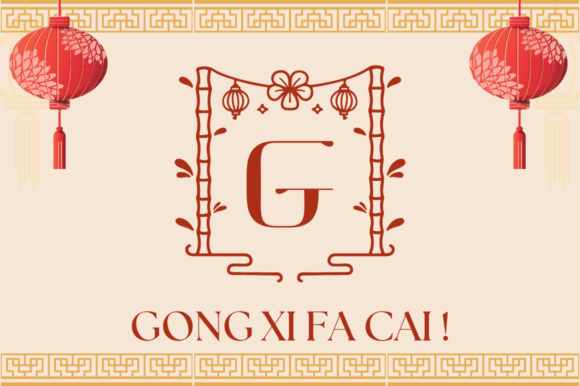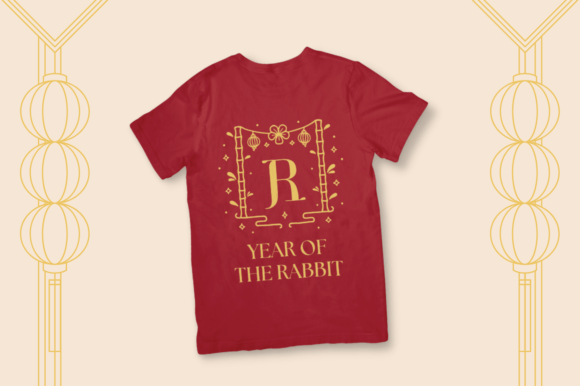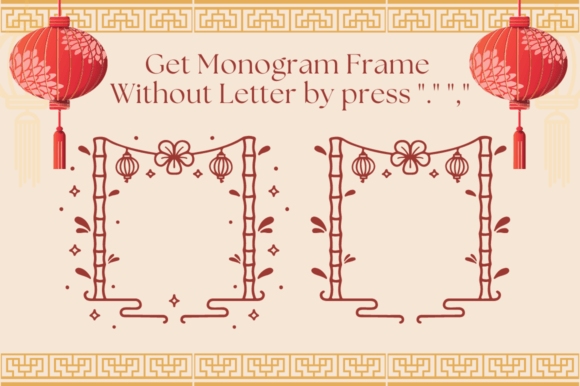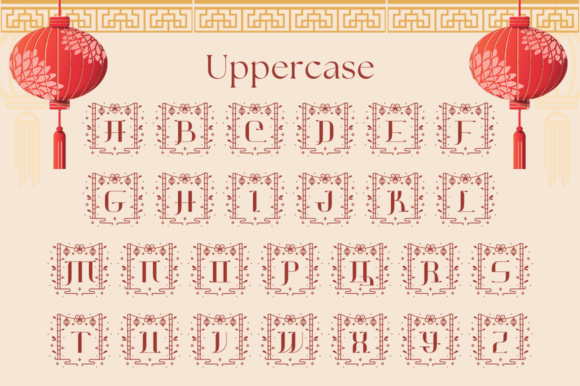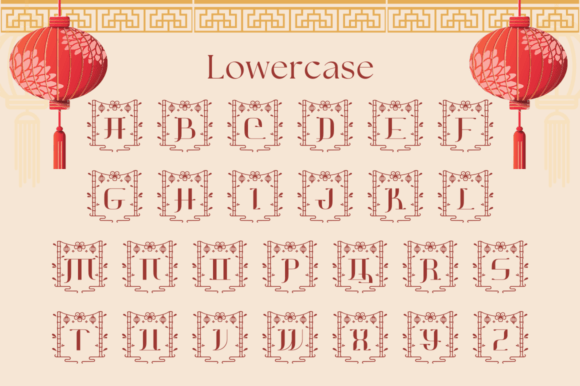
Jianshi Chinese Monogram Font – Free Download
Introduction to Jianshi Chinese Monogram Font
Jianshi Chinese Monogram is a Chinese display monogram inspired by chinese new year in bamboo forest.
This font can be used to make chinese new year themed gifts, including textiles, gifts for kids and perfect gift for a new homeowner, chinese family or anyone with a love of monograms Comes in with 2 styles.
Key Features of Jianshi Chinese Monogram Font